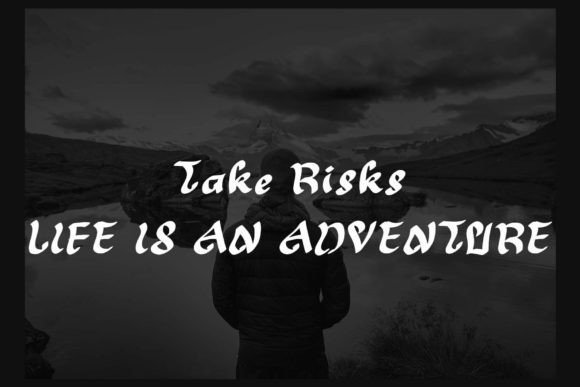
Asher Jackson Font: The Fresh and Cool Handwritten Font for Your Creative Projects
Are you looking for a font that can add a touch of freshness and coolness to your creative projects? Look no further than the Asher Jackson font. This handwritten font is perfect for designers, artists, and writers who want to add a personal touch to their work. In this article, we’ll take a closer look at the Asher Jackson font, its features, and how you can use it to elevate your creative projects.
What is Asher Jackson Font?
Asher Jackson is a fresh and cool handwritten font that is designed to add a touch of personality to your creative projects. It’s a modern font that is perfect for a wide range of applications, from branding and advertising to packaging and digital media. The font is carefully crafted to provide a unique and distinctive look that sets it apart from other fonts.
Key Features of Asher Jackson Font
- Handwritten style: Asher Jackson font has a handwritten style that gives it a personal and unique touch.
- Modern design: The font has a modern design that makes it perfect for contemporary creative projects.
- Fresh and cool look: The font has a fresh and cool look that can add a touch of personality to your projects.
- Easy to read: Despite its handwritten style, Asher Jackson font is easy to read and can be used for both headings and body text.
How to Use Asher Jackson Font in Your Creative Projects
Asher Jackson font is a versatile font that can be used in a wide range of creative projects. Here are some ideas on how to use it:
Project Ideas for Asher Jackson Font
- Branding and advertising: Use Asher Jackson font to create unique and eye-catching logos, posters, and advertisements.
- Digital media: Use the font to create engaging social media graphics, blog posts, and website content.
- Packaging design: Use Asher Jackson font to create eye-catching packaging designs that stand out on store shelves.
- Art and illustration: Use the font to add a personal touch to your artwork and illustrations.
Benefits of Using Asher Jackson Font
There are many benefits to using Asher Jackson font in your creative projects. Here are some of the advantages of using this font:
Benefits of Asher Jackson Font
- Unique and distinctive look: Asher Jackson font has a unique and distinctive look that sets it apart from other fonts.
- Easy to read: The font is easy to read, making it perfect for both headings and body text.
- Versatile: Asher Jackson font can be used in a wide range of creative projects, from branding and advertising to packaging and digital media.
- Modern design: The font has a modern design that makes it perfect for contemporary creative projects.
Tips for Using Asher Jackson Font Effectively
Here are some tips for using Asher Jackson font effectively in your creative projects:
Tips for Using Asher Jackson Font
- Use it sparingly: Use Asher Jackson font sparingly to add a touch of personality to your projects.
- Pair it with other fonts: Pair Asher Jackson font with other fonts to create a unique and eye-catching look.
- Experiment with different sizes and colors: Experiment with different sizes and colors to find the perfect combination for your project.
- Keep it consistent: Keep the font consistent throughout your project to create a cohesive look.
In conclusion, Asher Jackson font is a fresh and cool handwritten font that can add a touch of personality to your creative projects. Its modern design, unique look, and ease of use make it perfect for a wide range of applications. By following the tips outlined in this article, you can use Asher Jackson font effectively and create stunning creative projects that stand out from the crowd.